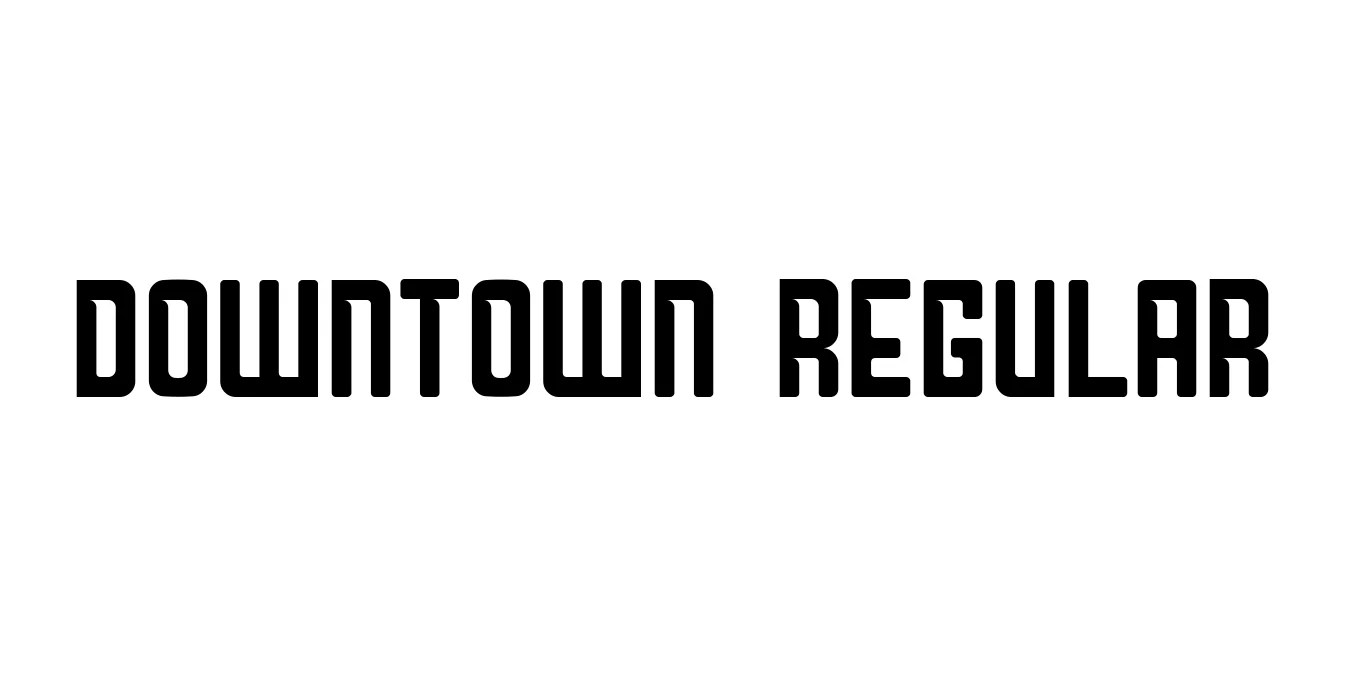
Downtown Regular
Designed by Iordanis Passas
| Category | Display / Sans Serif |
| Designer | Iordanis Passas |
Downtown Regular is a striking display typeface inspired by the vibrant urban landscapes and architectural geometry found in major metropolitan hubs. Developed by Iordanis Passas, the font features a balanced structure with clean, sharp lines that reflect modern sensibilities and city life. Its design philosophy centers on high visibility and structural integrity, making it an excellent choice for designers looking to convey a sense of modernism and professionalism.
The font's minimalist aesthetic and bold weight ensure it remains legible even from a distance, which is why it is frequently used in large-scale environmental design. Whether applied to digital interfaces or physical print media, Downtown Regular offers a contemporary feel that elevates branding, editorial layouts, and promotional materials with its sophisticated yet approachable urban character.
Downtown Regular Best Uses
Excellent for creating modern logos and strong corporate identities.
Perfect for bold, attention-grabbing titles in web and print media.
Highly effective for physical wayfinding and urban environment displays.
Well-suited for fashion magazines and architectural publications.